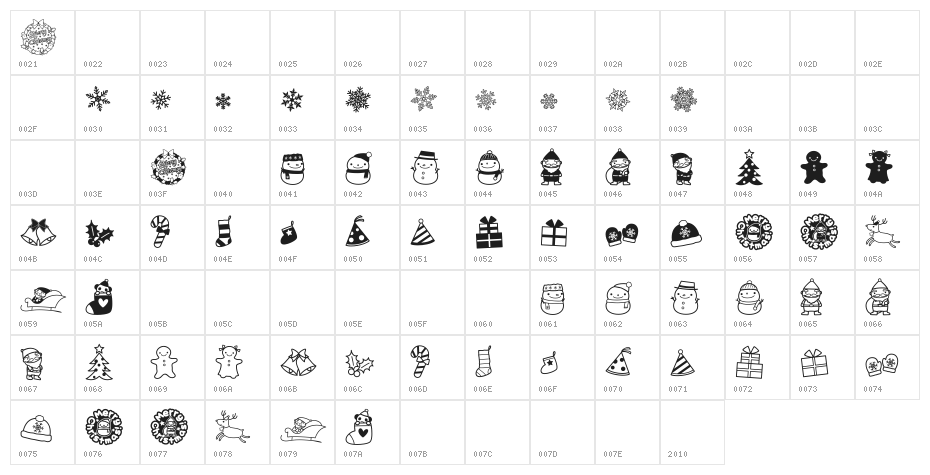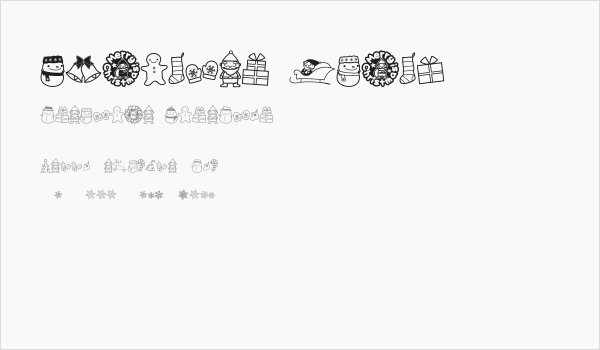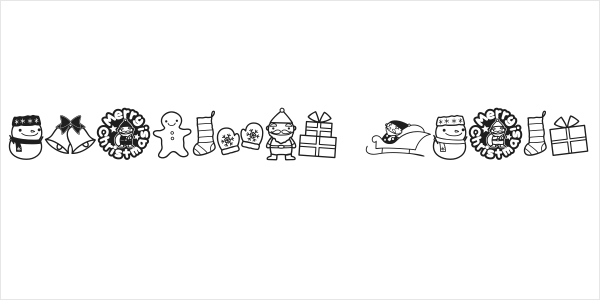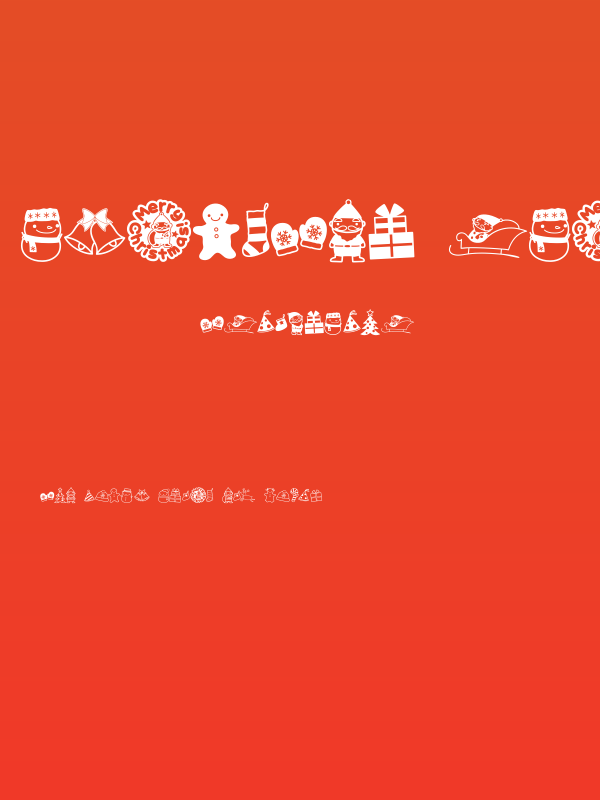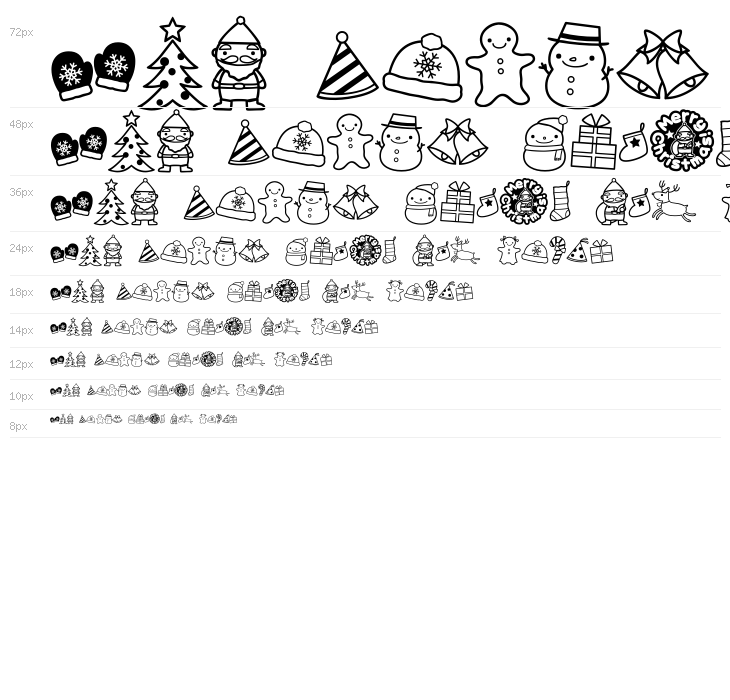
AKWinter Yawns Font
AKWinter Yawns Description
This is a decorative font featuring playful and festive winter-themed icons. Each character is represented by a unique illustration, including snowmen, Santa Claus, Christmas trees, gingerbread men, and various holiday decorations. The style is whimsical and cartoonish, with bold outlines and simple, charming details that evoke a sense of joy and celebration. The icons are designed to be easily recognizable and are perfect for adding a touch of holiday spirit to any project.
| Use Case | Logos, Headlines, Decorative elements |
| Proposed Projects | Ideal for holiday greeting cards, festive invitations, seasonal decorations, and playful winter-themed designs. |